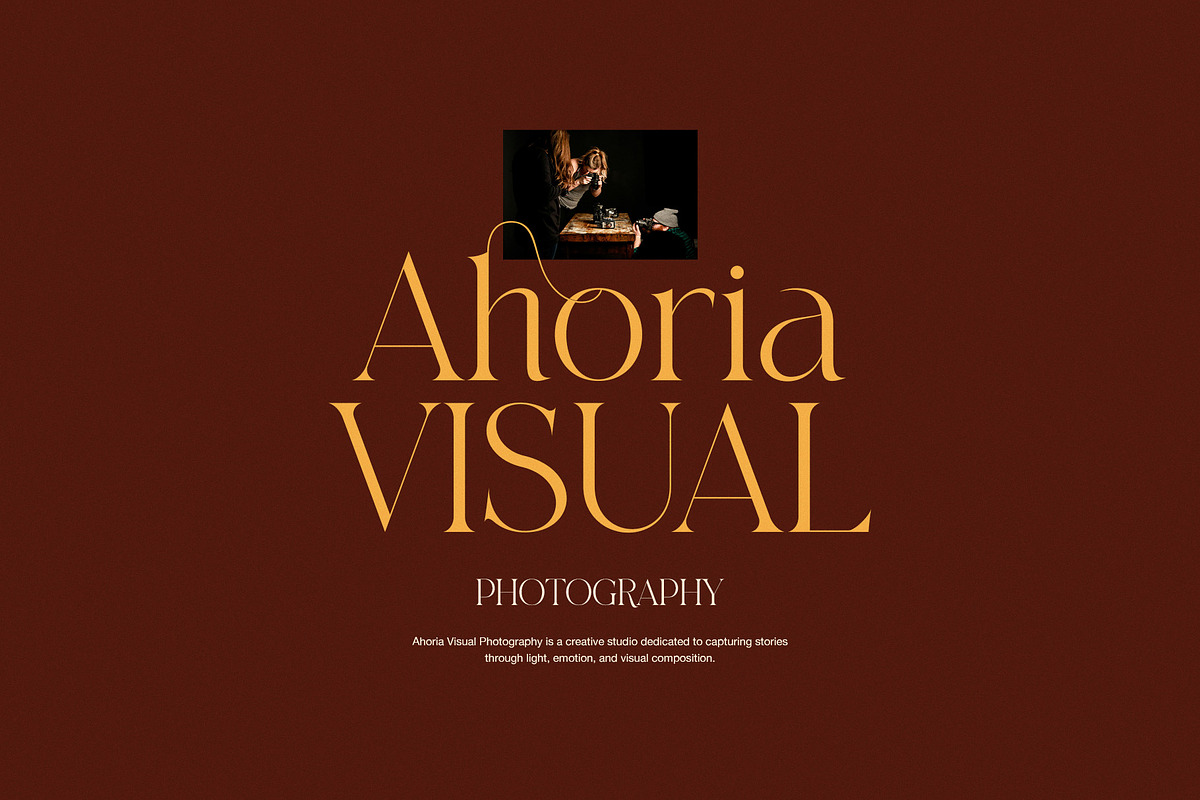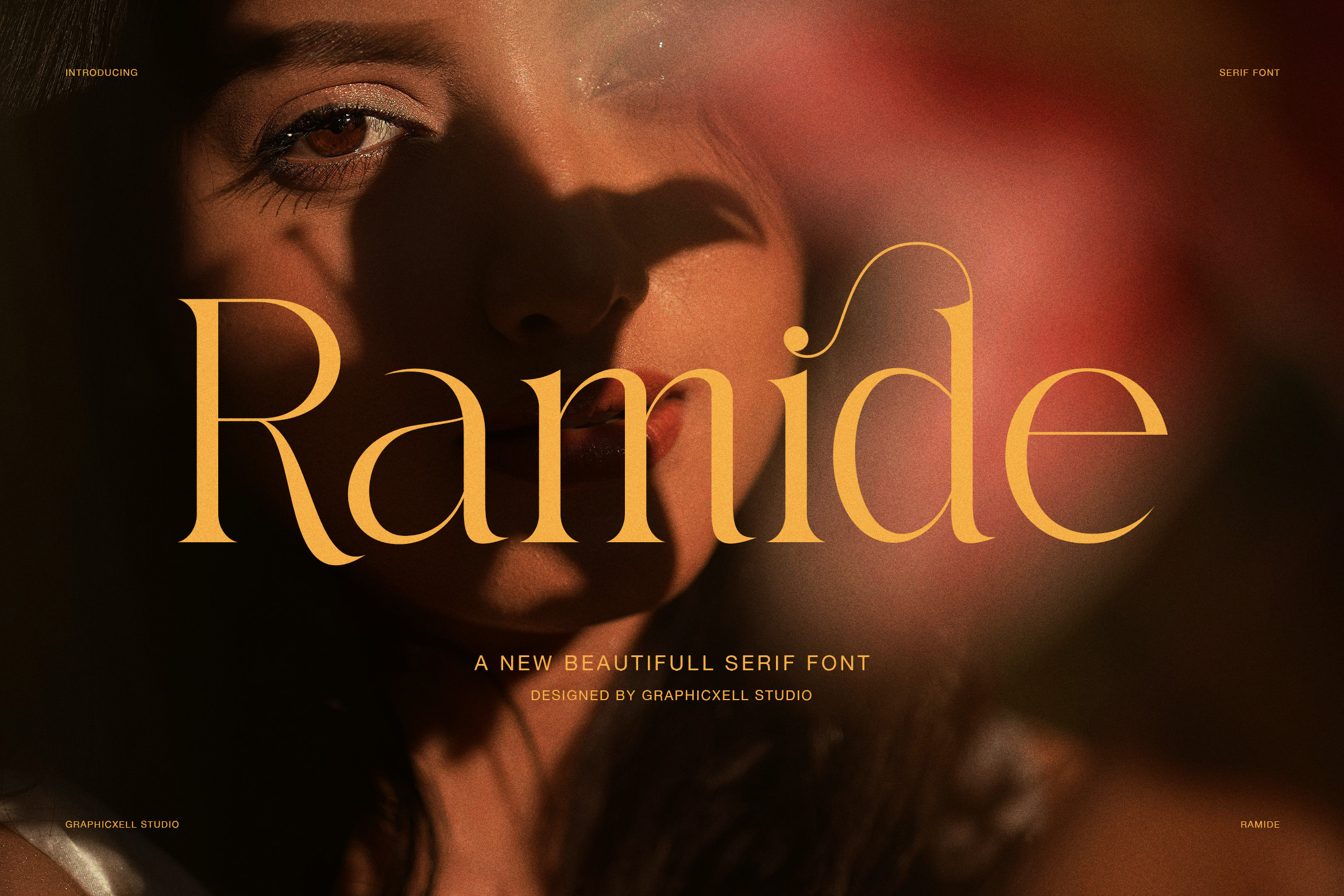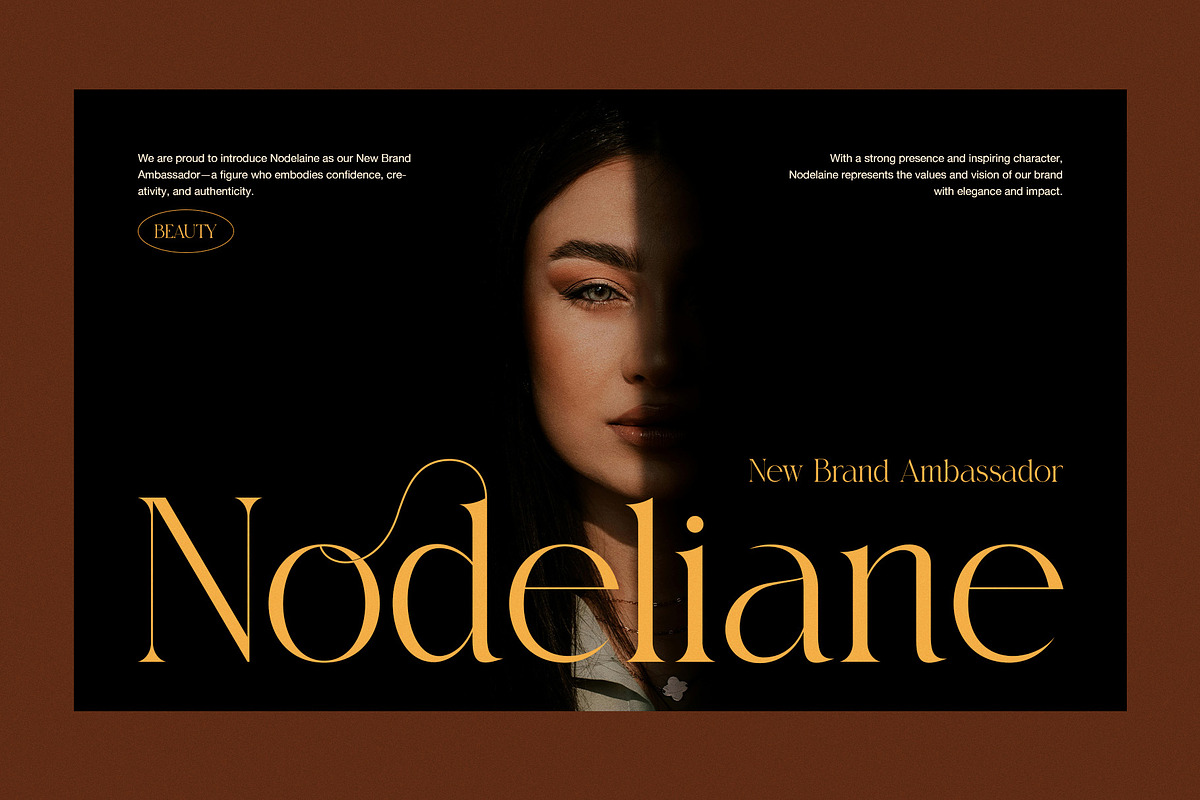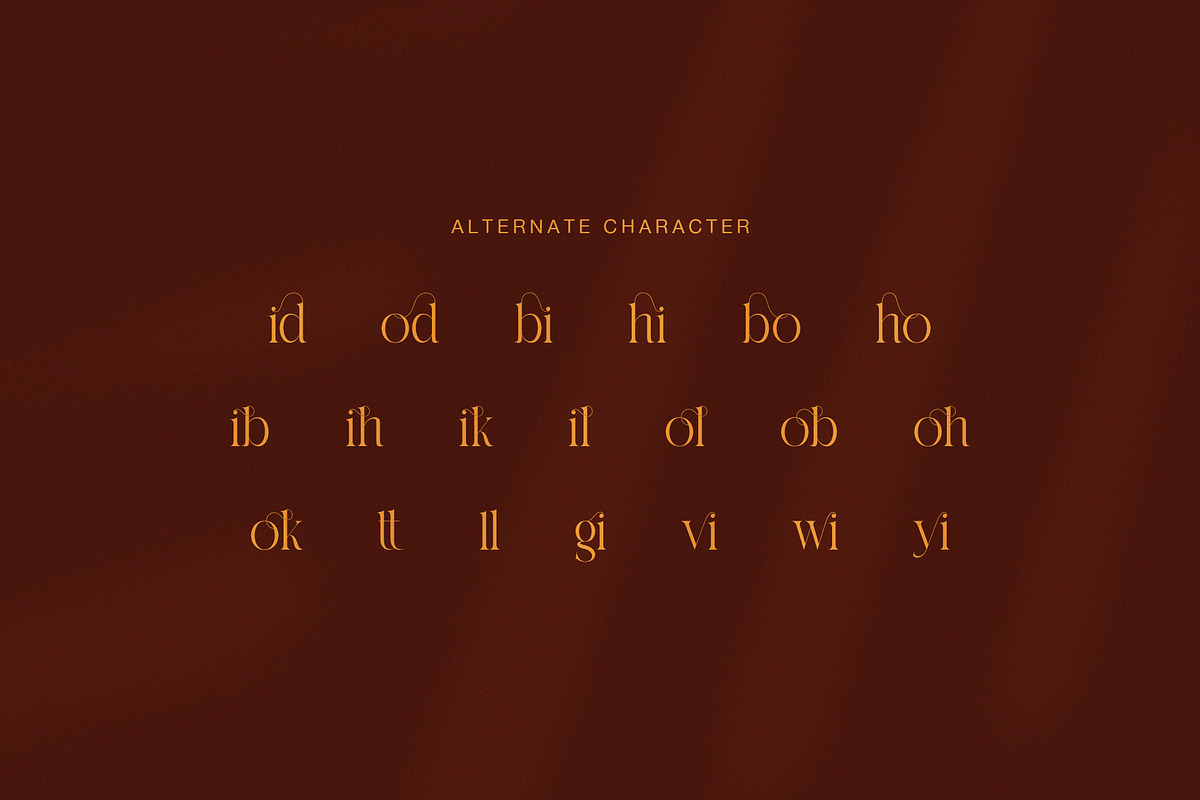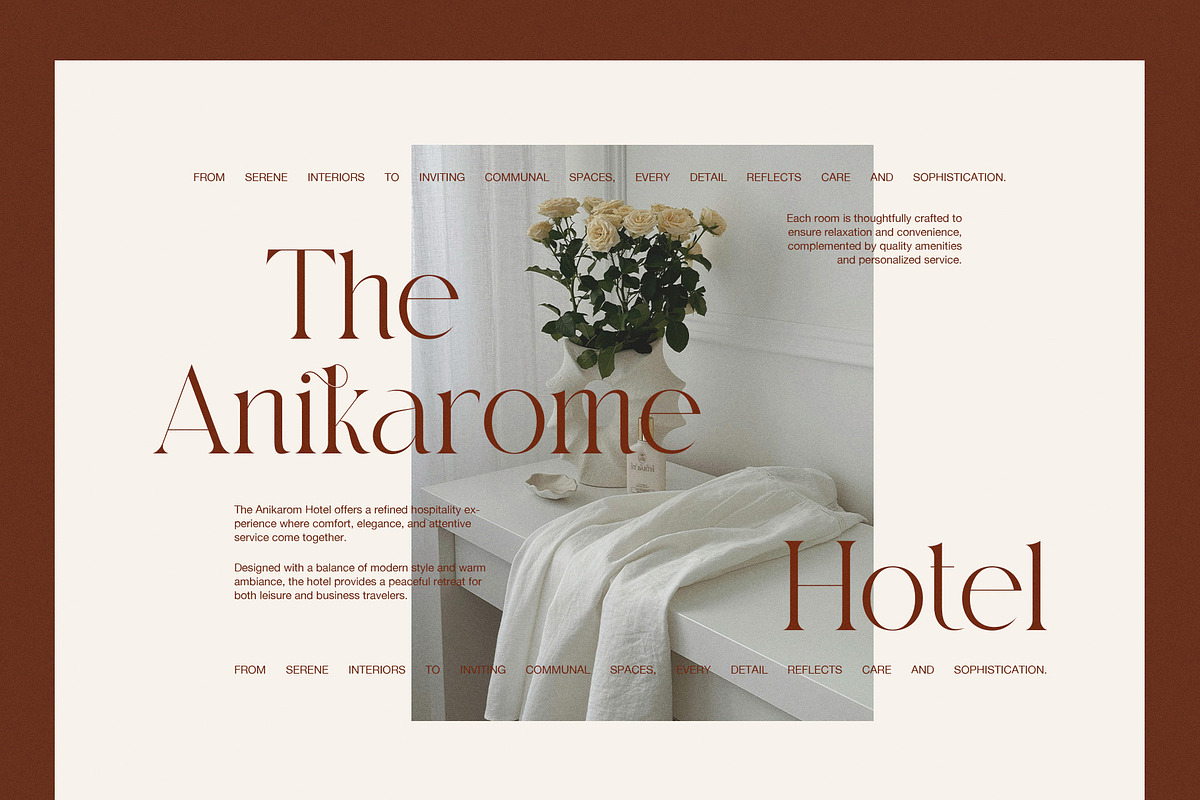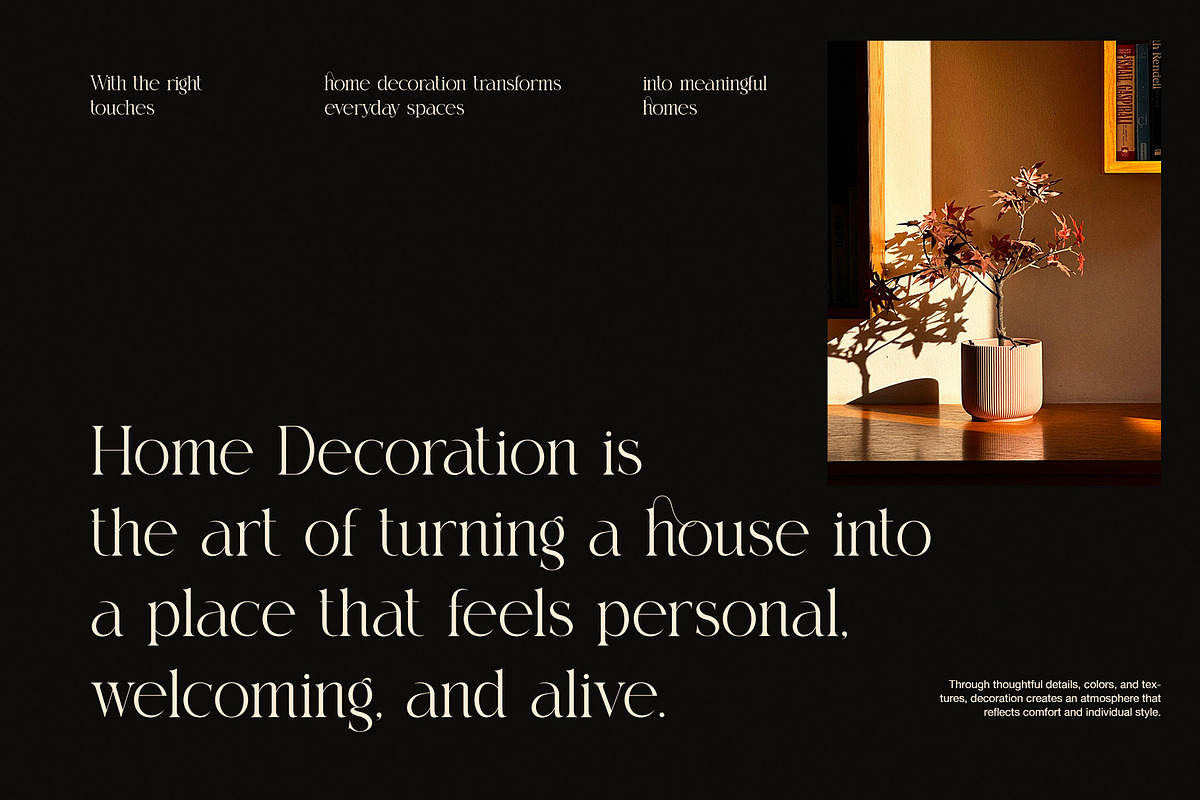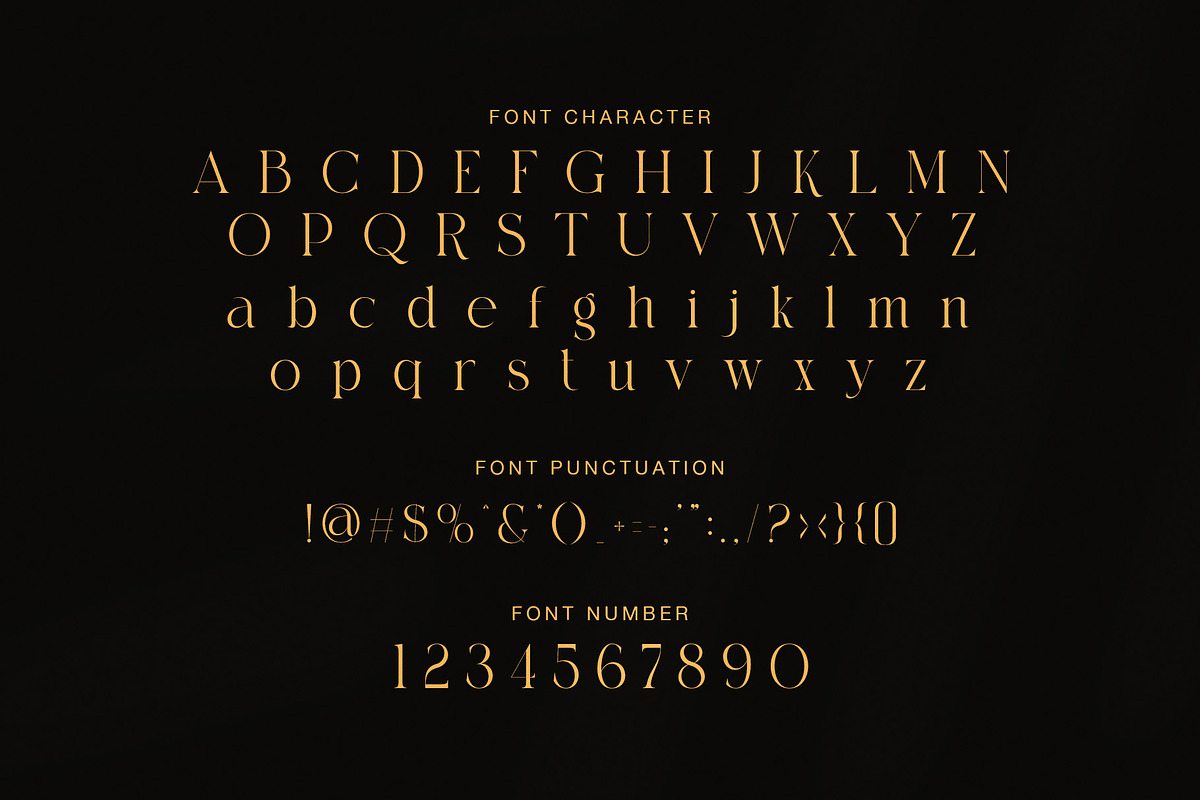
Ramide Elegant Serif Font
Elegant Serif Font for Luxury Branding and Editorial Design
Ramide is an elegant serif font that brings warmth, balance, and refined beauty to modern design. Moreover, it blends classic letter structure with smooth curves, so each word feels graceful and confident. Because of this balance, designers can use Ramide for luxury branding, editorial layouts, and stylish visual stories.
In addition, Ramide includes decorative alternates that add movement to headlines and logos. Therefore, brand names and titles feel more personal and expressive. At the same time, the main letter shapes stay clean and readable, even at smaller sizes. As a result, the font works well for both display text and short paragraphs.
Furthermore, Ramide suits many creative fields. For example, it fits photography studios, beauty brands, fashion labels, and lifestyle magazines. It also performs beautifully in home décor branding, restaurant menus, hotel identities, and product packaging. Since the letterforms stay calm and elegant, layouts feel premium without looking heavy.
Why designers choose Ramide
This serif font supports creative layouts while keeping strong visual order. Also, it adapts well to different moods, from soft and romantic to bold and confident.
Main features and benefits:
Elegant serif design with soft curves
Decorative alternates for expressive headlines
Smooth ligatures for better word flow
High contrast for luxury layouts
Clean structure for easy reading
Strong uppercase for branding and logos
Balanced lowercase for long text use
Works for print and digital projects
Moreover, Ramide helps brands build emotional connection through typography. Instead of sharp or cold shapes, it offers gentle elegance and natural rhythm. Because of that, designs feel welcoming and professional at the same time.
Finally, if you need a serif font that feels stylish, flexible, and timeless, Ramide gives you that solution. It supports creative ideas, improves visual quality, and strengthens brand identity across many platforms.